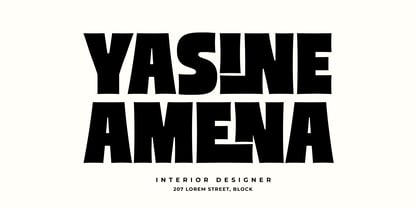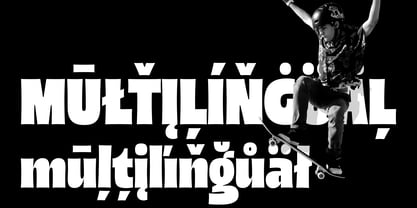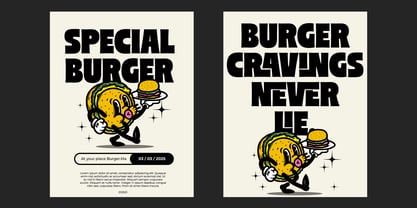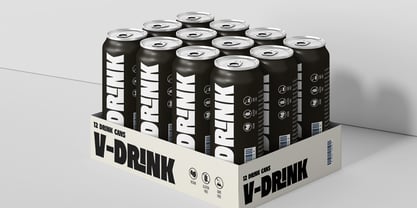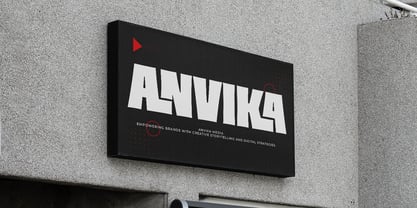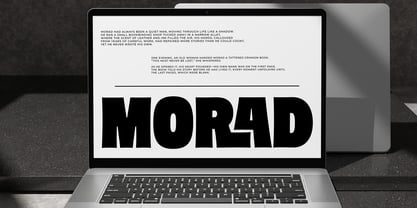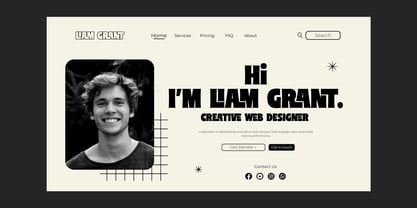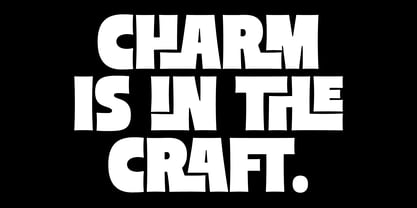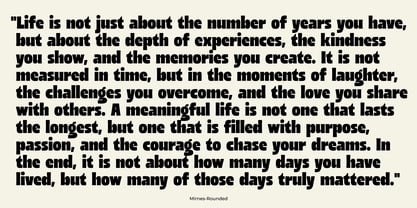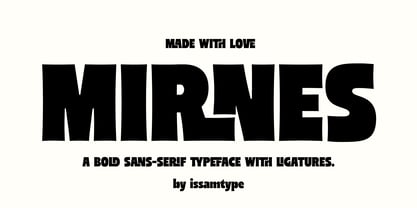
Mirnes
by Issam Type
Mirnes Font Family was designed by Issam Boufelja and published by Issam Type. Mirnes contains 3 styles family package options.
Mirnes is a bold ligature typeface with striking letterforms and unique ligatures, perfect for impactful headlines and creative branding – and so much more.
Mirnes comes with Regular, Rounded, and Outline styles, along with uppercase letters, numbers, punctuation, alternates, and multilingual support, making it versatile for any design project.